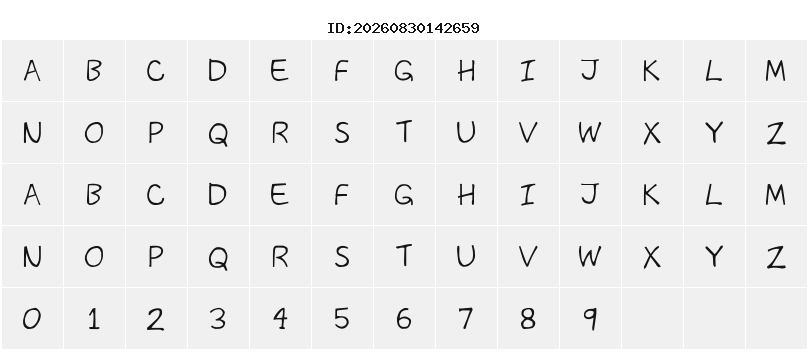
The Past__G Preview
• Font Name: The Past__G
• Full Font Name: The Past__G
• Version: Ver.1 Gomarice Font 2004/11/??
• Copyright: Goma Shin
About The Past__G.ttf
The Past__G.ttf is a modern, elegant sans-serif font designed for ultimate readability and visual harmony. Perfect for branding, headlines, web design, and print materials.